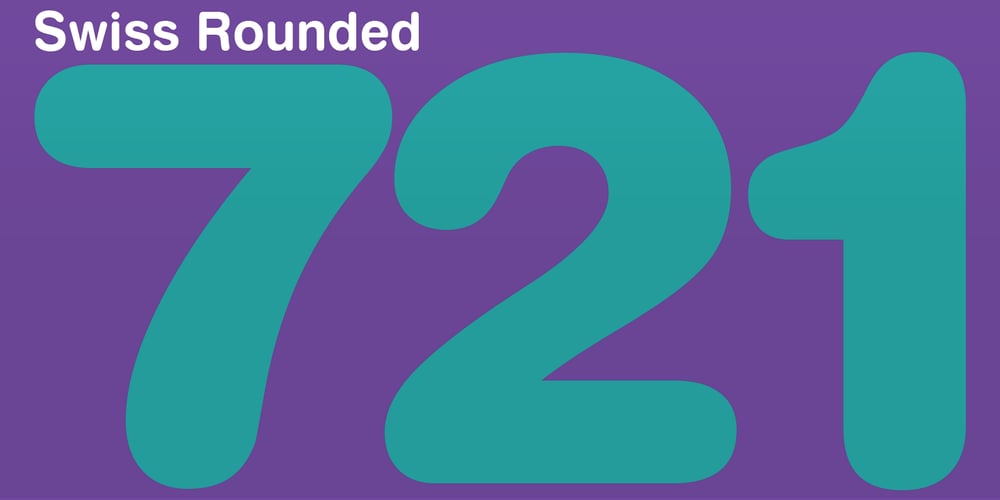
Swiss 721 Font Family was designed by Max Miedinger and published by Bitstream. Swiss 721 contains 32 styles and family package options. Swiss 721™ is a sans serif family that ranges in style from thin to black while mixing in a few unexpected, but beautifully made and ironically flattering, outline weights that spice up the grotesque design. Couple these upstanding letterforms with matching italic styles and you have yourself a beautiful tool that is as legible on screen as it is off, has the technical prowess to conquer even the trickiest of design riddles and will work in a myriad of projects. Swiss 721 is a staple sans serif that you’ll never be sorry you have in your library. It’s been said that a simple sans serif is one of the most difficult typefaces to design. This is because when letters are reduced to their most basic details, irregularities and inconsistencies in design become immediately visible. The Swiss 721 typeface family is a quintessential example of letterforms distilled to their essence while still possessing warmth and verve. Based on mid-century sans serif typefaces, Swiss 721 is a versatile family of weights and proportions ideally suited to a wide variety of print and interactive design projects and is equally at home as headlines on billboards as it is navigation content on small screens. Swiss 721 takes the essence of mid 20th century sans serif typefaces and melds it with modern design consistency and a systematic weight range.